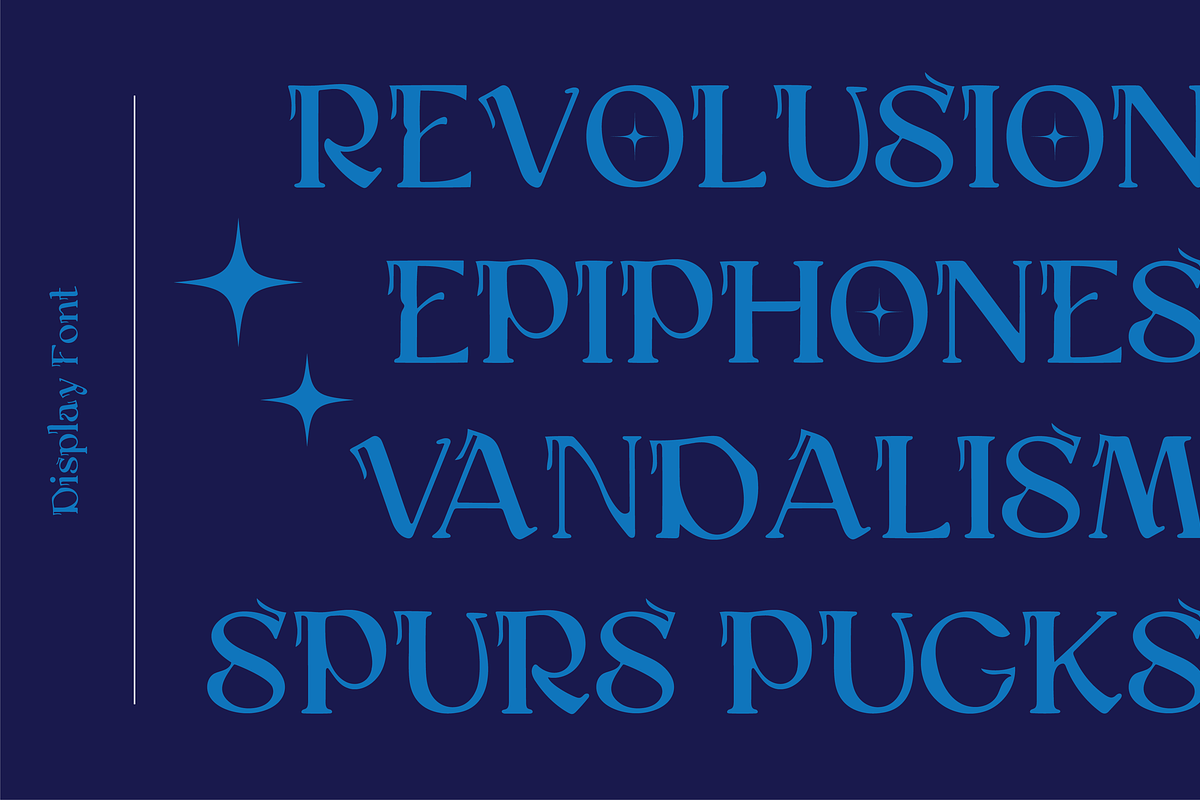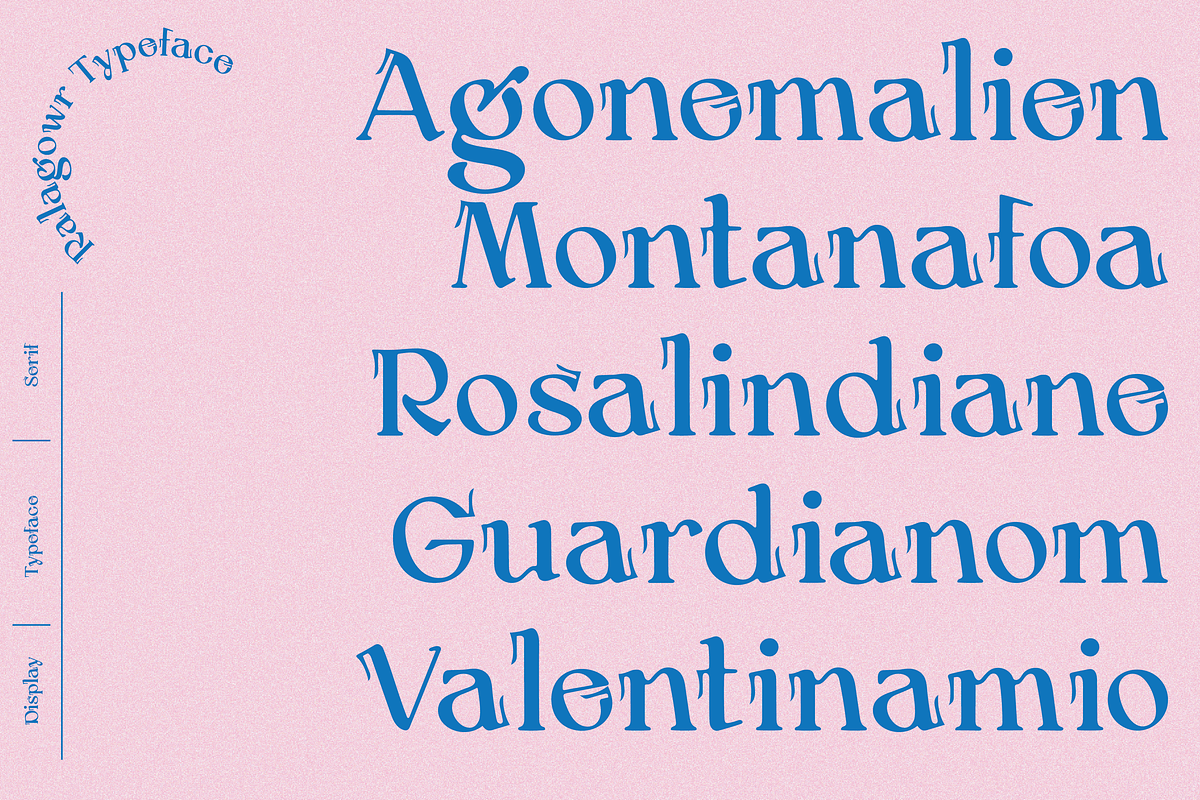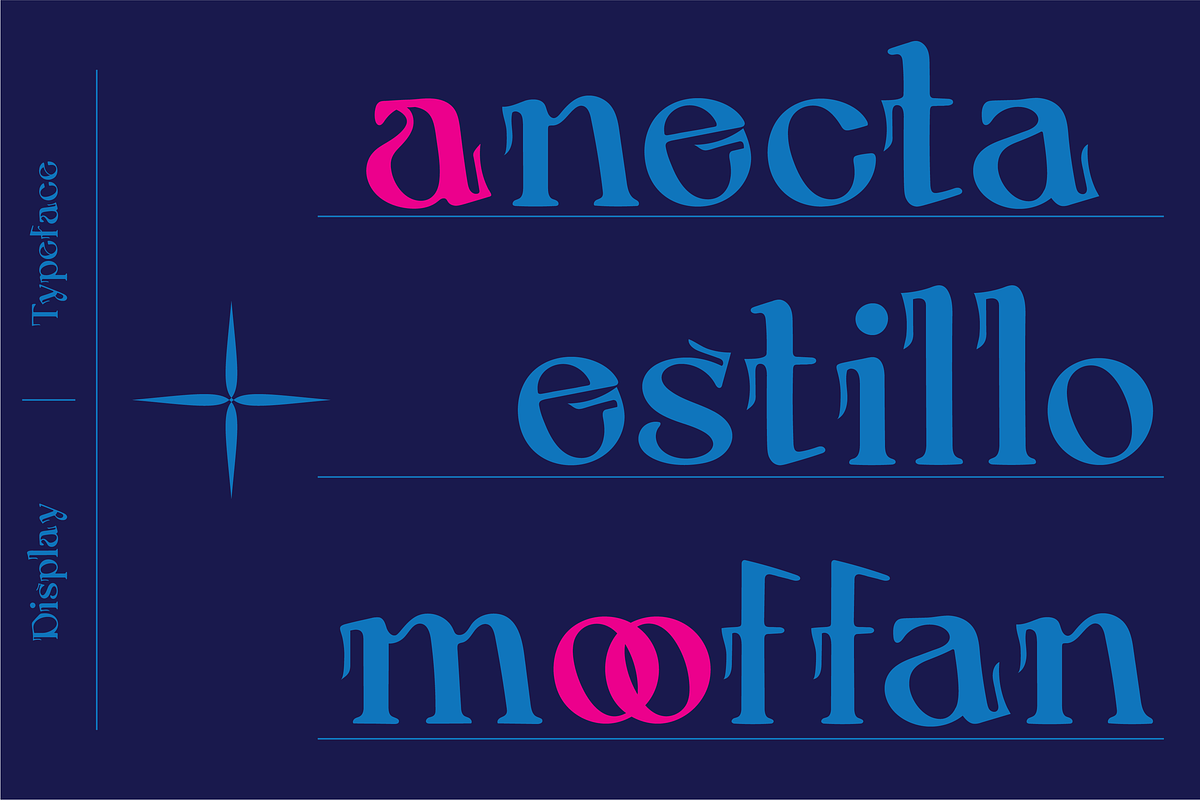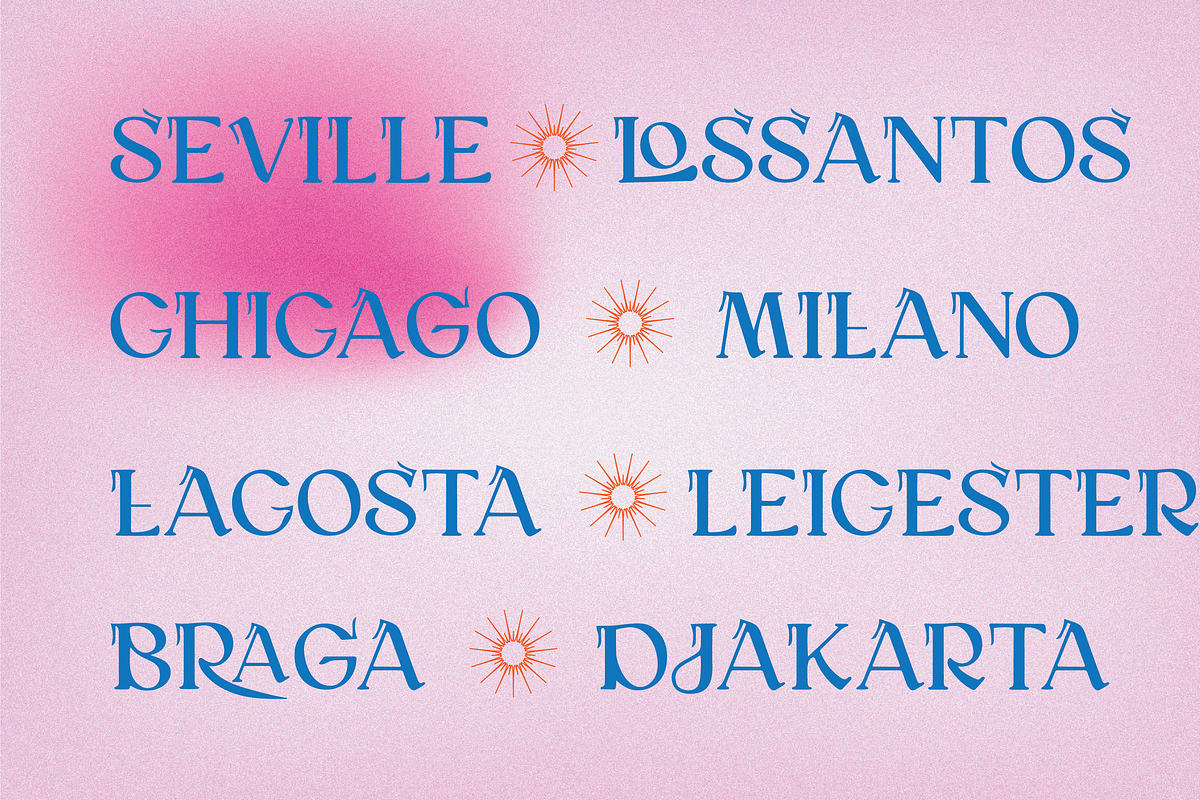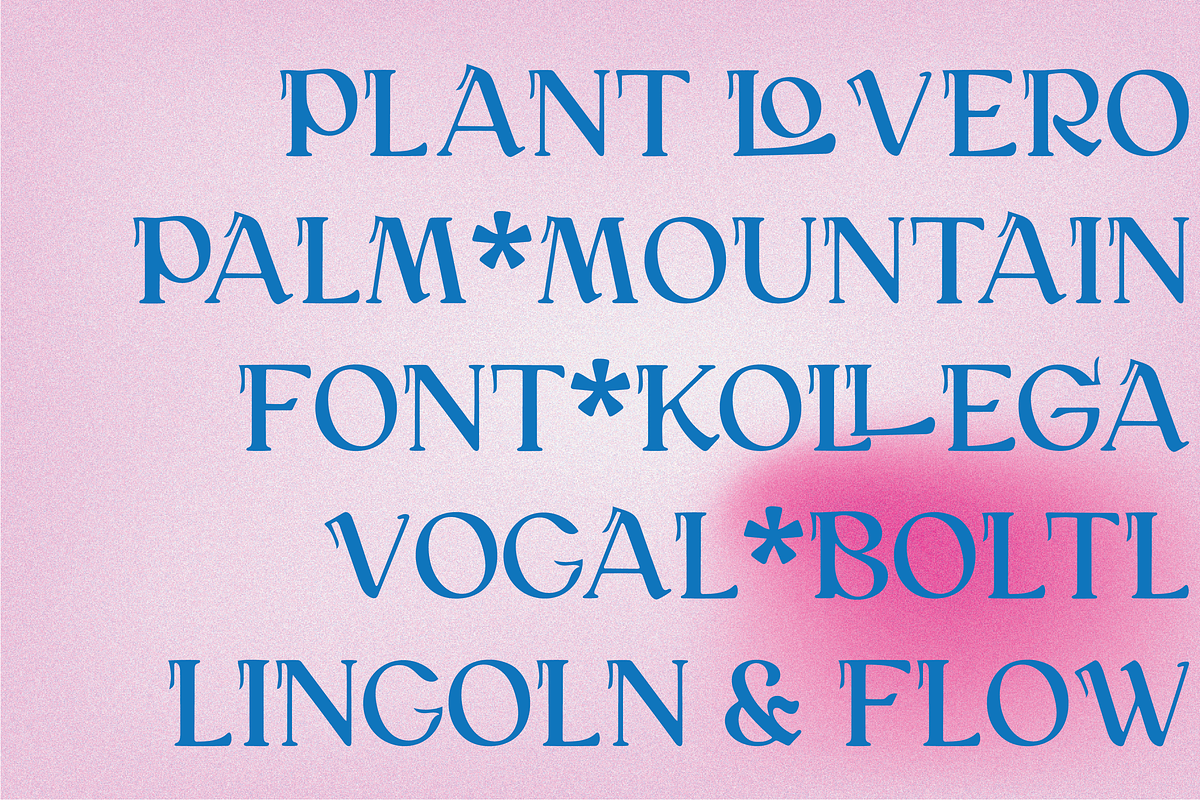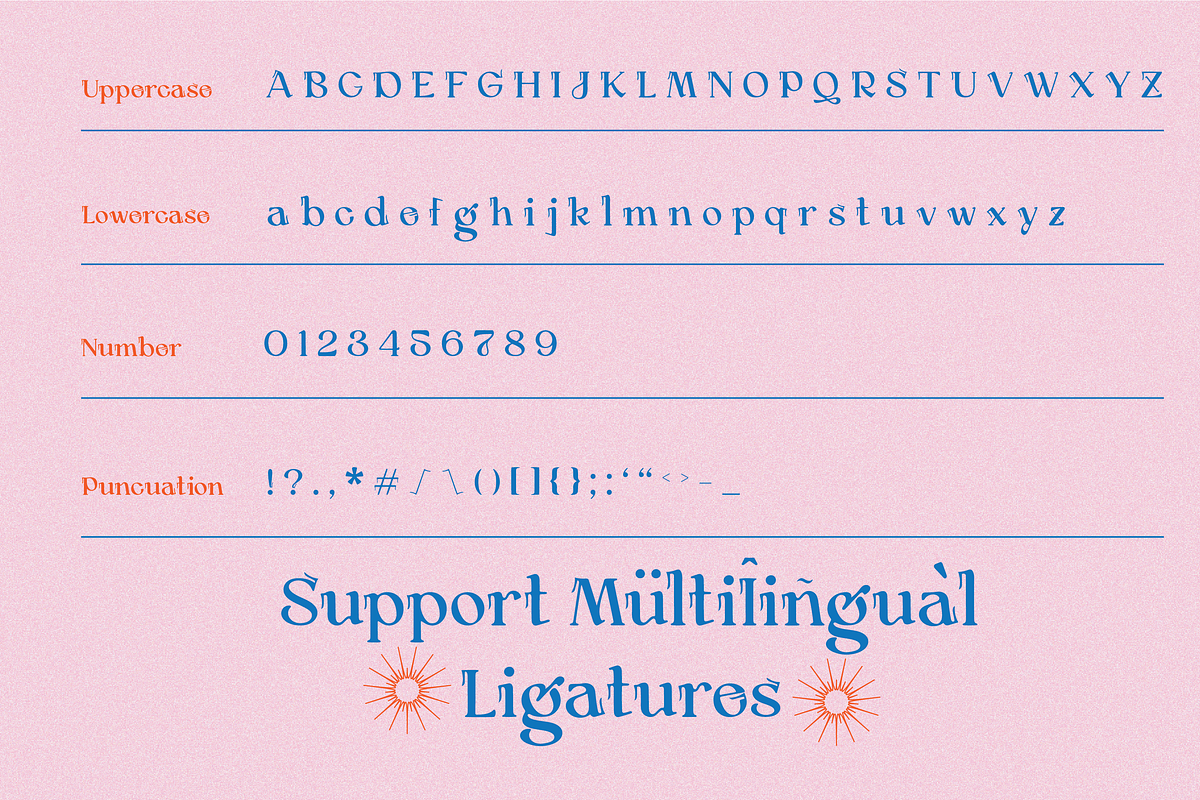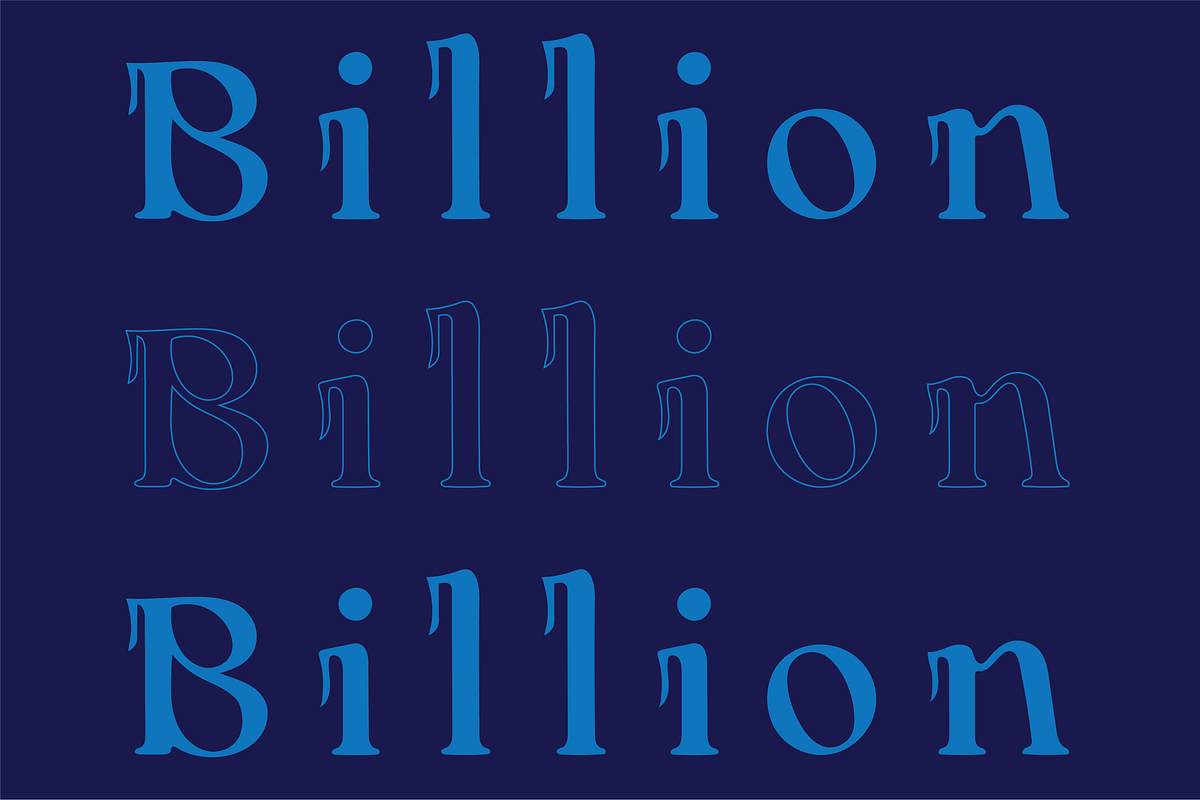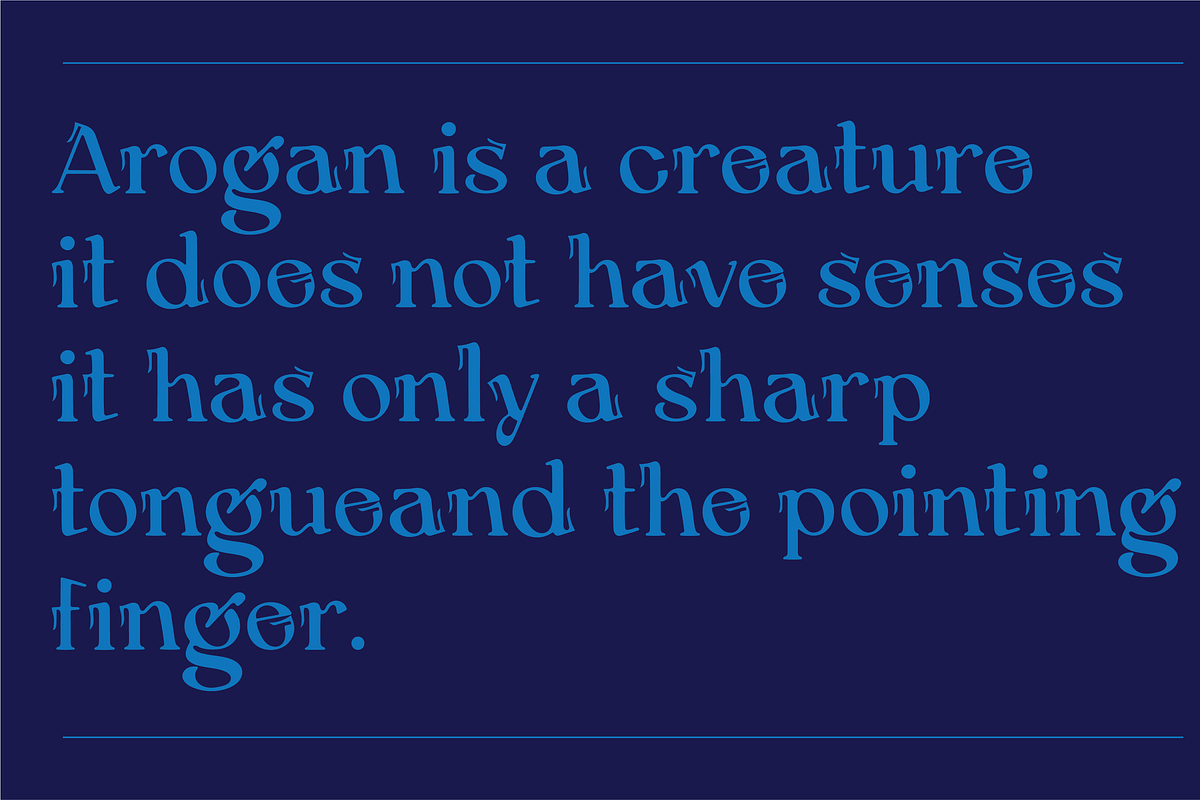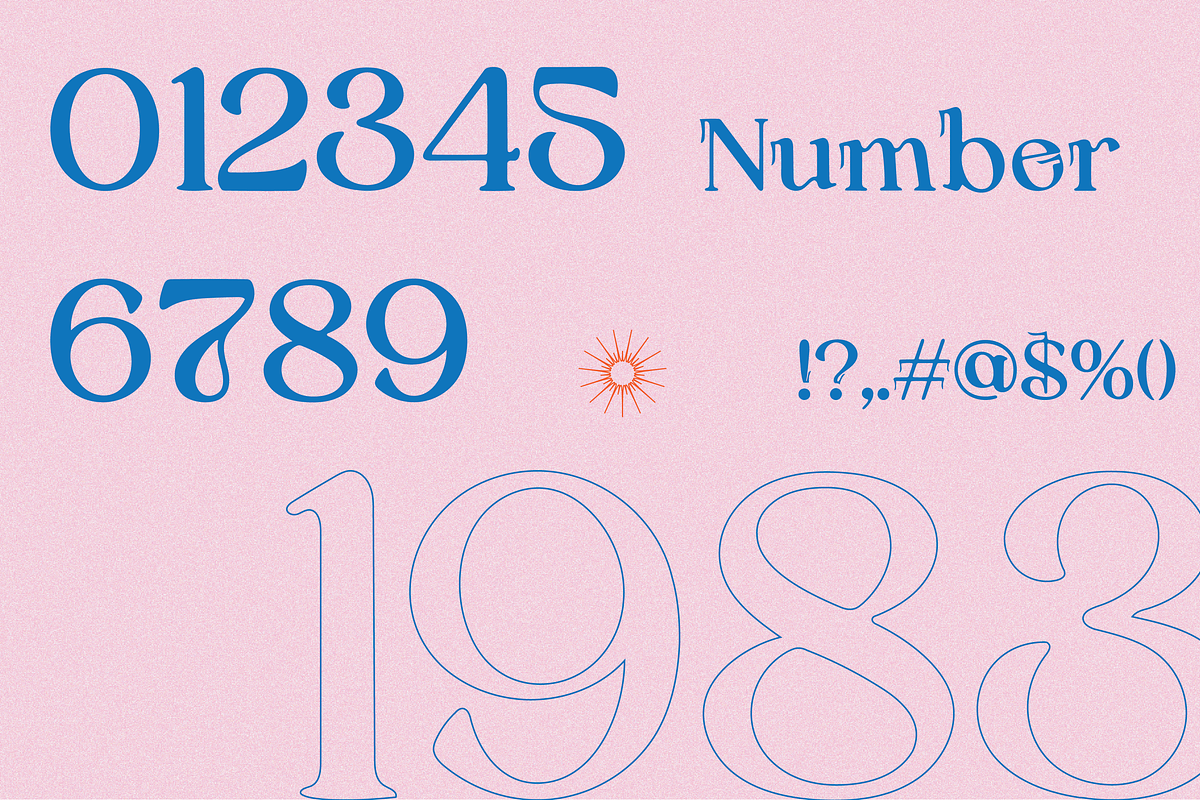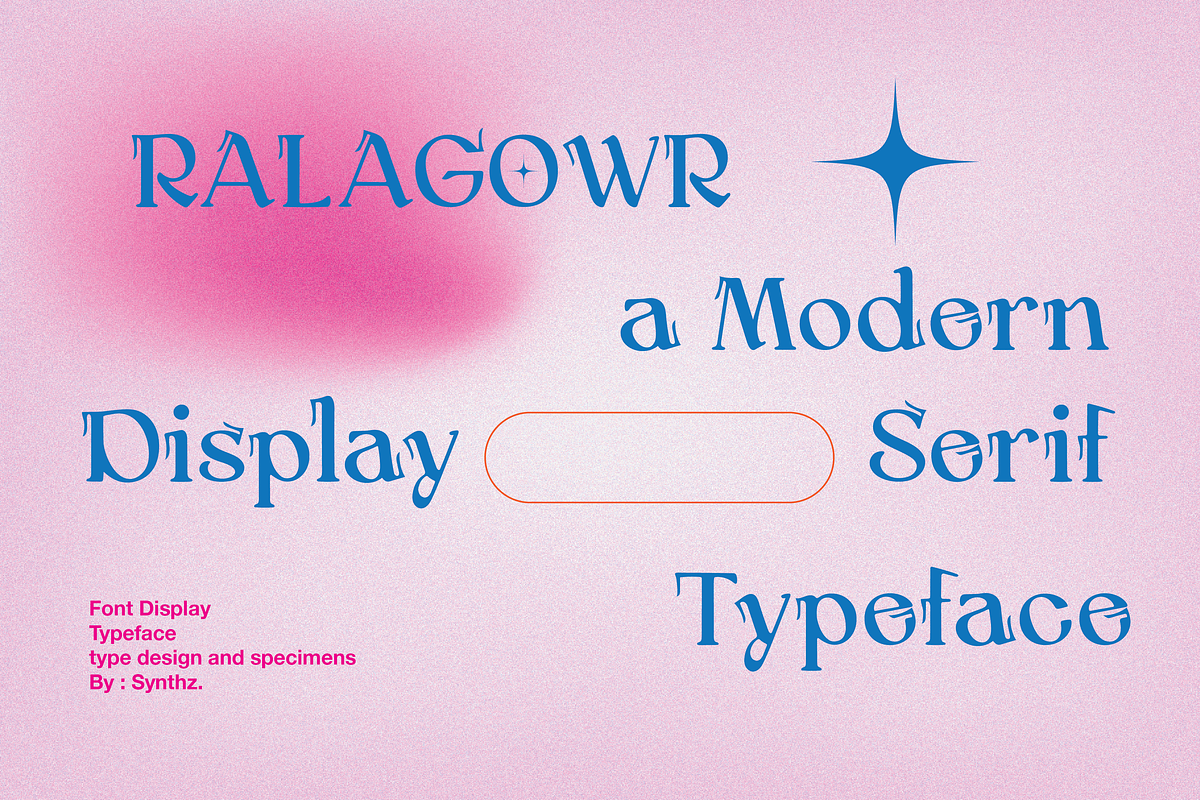
Ralagowr
Ralagowr is a fashionable serif font. It looks ravishing on a variety of designs that require a special style. Perfect for logos, branding, marketing materials, name tags, packaging, and more.